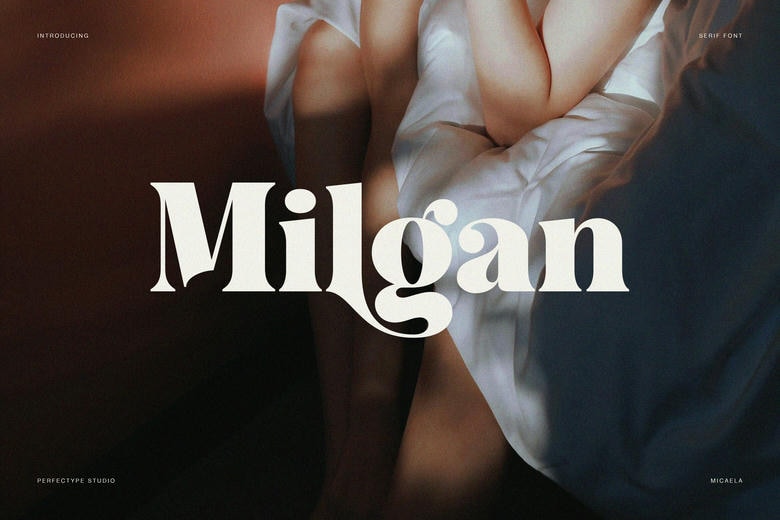
Milgan Font
Milgan is a modern serif typeface that is very elegant, designed to communicate confidence, warmth, and sophisticated simplicity. This font appears classy and dignified at the first glance. Thus, it is a robust option to the designers who desire typography that is both expressive and controlled.
Milgan is a blend of classical serif foundations, curves and balanced contrast. Consequently, every letterform is soft yet formal. The forms are natural and the details are subtle and give the image personality without being distracting. In addition, the entire design is clean, contributing to the font’s perennial and universal quality.
Milgan Serif Font